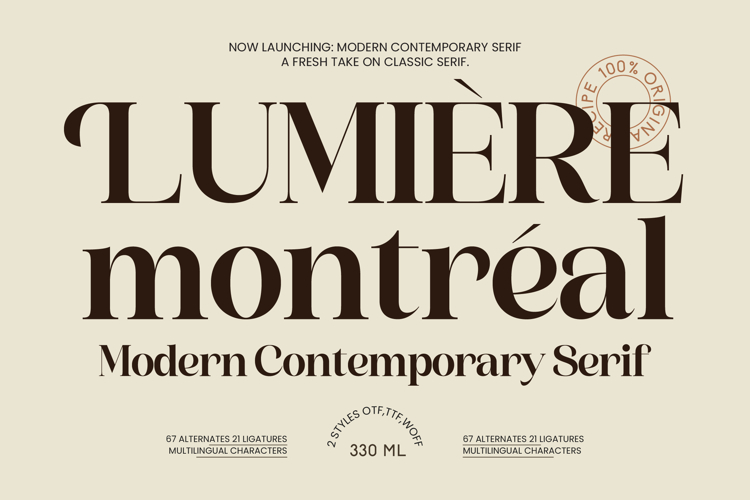
Lumiere Montreal - Modern Contemporary Serif
Elevate your design identity with a typeface that embodies timeless sophistication and modern-day allure. Lumiere Montreal - Modern Contemporary Serif is a masterclass in high-contrast elegance, bridging the gap between classic serif traditions and minimalist aesthetics. This font features refined, flowing curves and sharp serifs that provide a commanding visual presence while maintaining superior legibility for high-end displays.
Unlock the potential of premium visual communication with a typographic tool built for upscale industries. This typeface is the ideal choice for luxury branding, high-end packaging, and editorial design, making it perfect for projects that require a polished and professional finish. Whether you are developing a bespoke logo or a chic magazine layout, Lumiere Montreal - Modern Contemporary Serif ensures a sophisticated and authoritative brand voice that resonates with discerning audiences.
Experience unparalleled creative flexibility with a comprehensive suite of features designed for the modern creative professional. With its extensive multilingual support, Lumiere Montreal - Modern Contemporary Serif adapts seamlessly across global markets, making it incredibly versatile for international projects. Including 67 unique alternates and 21 artistic ligatures, the font allows for unlimited customization, ensuring your visual identity remains unique and impactful in any linguistic context.